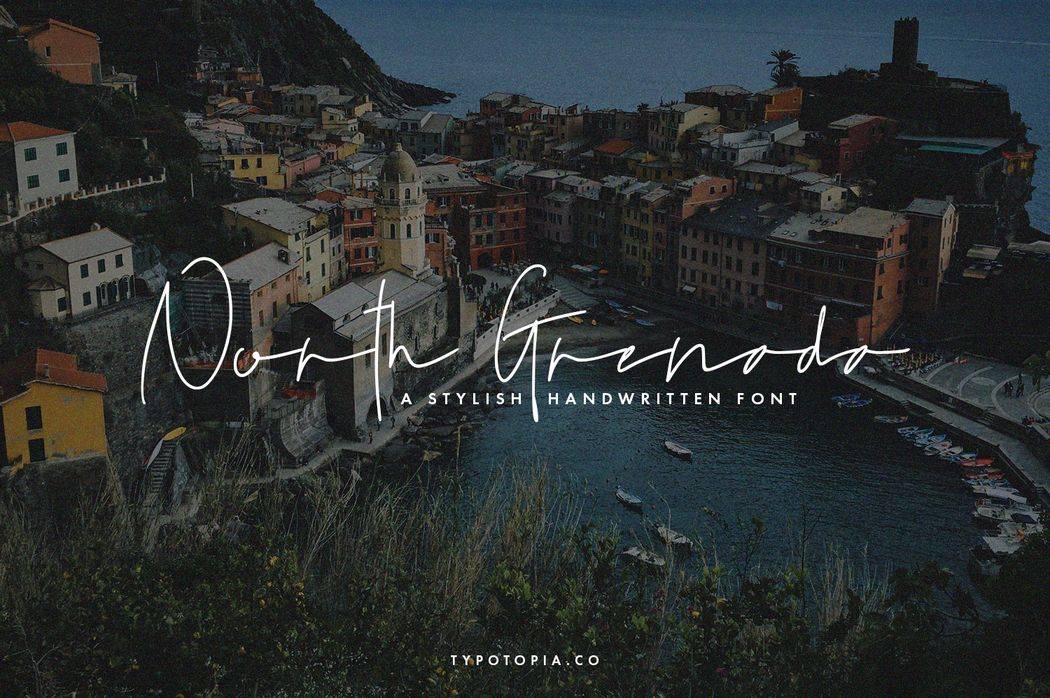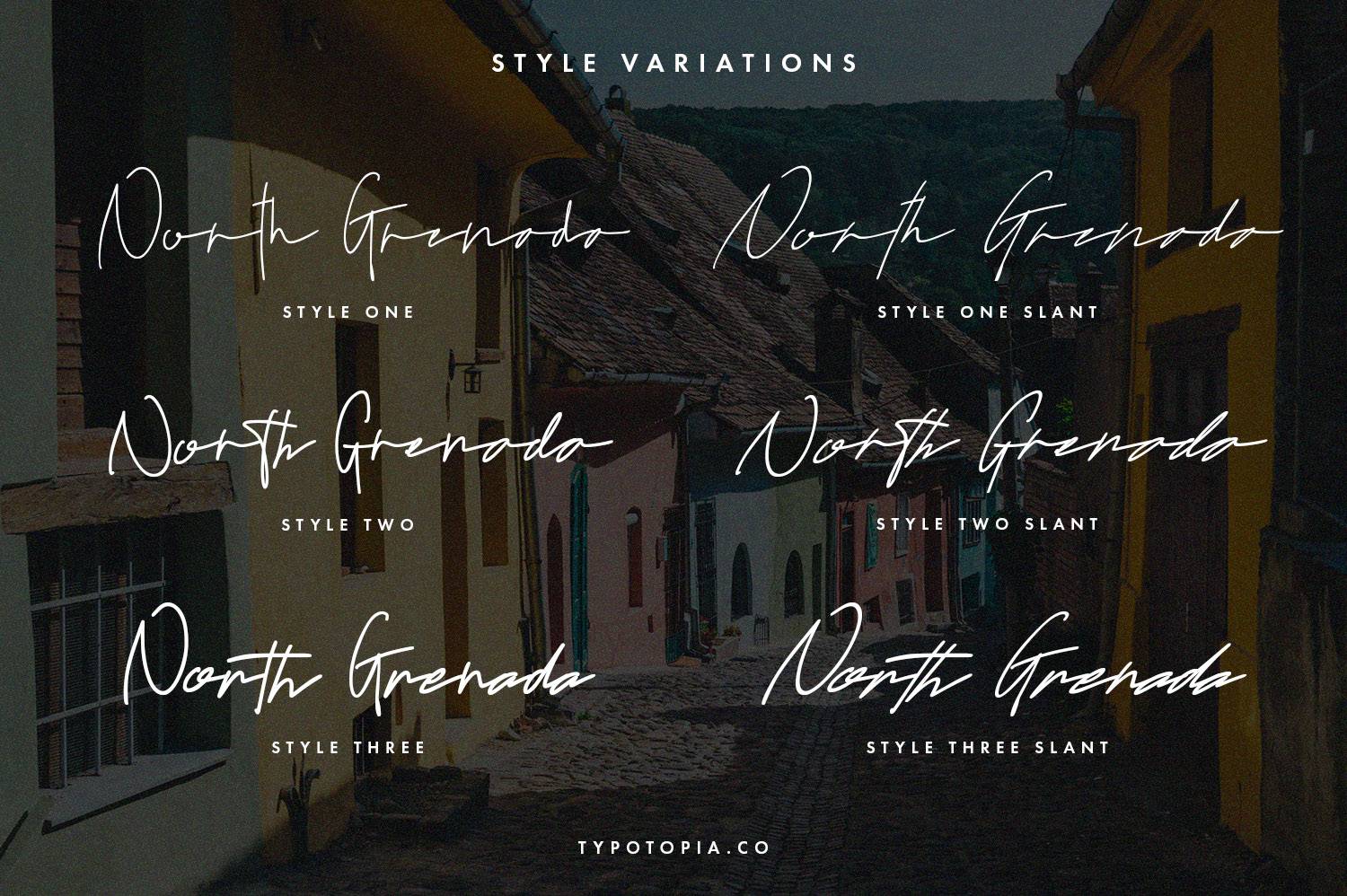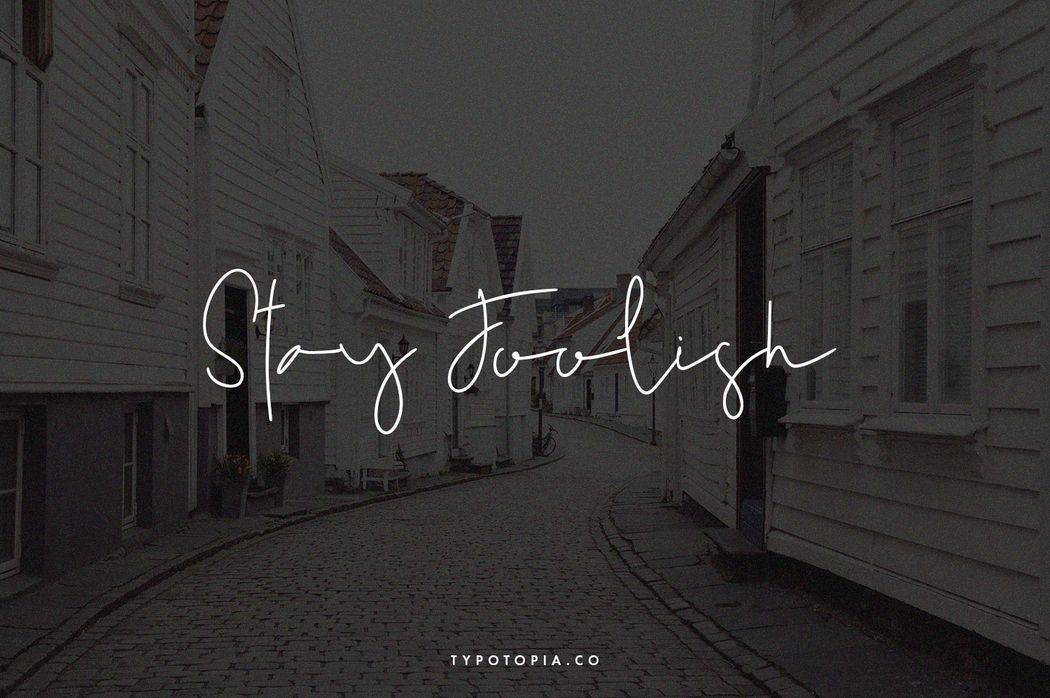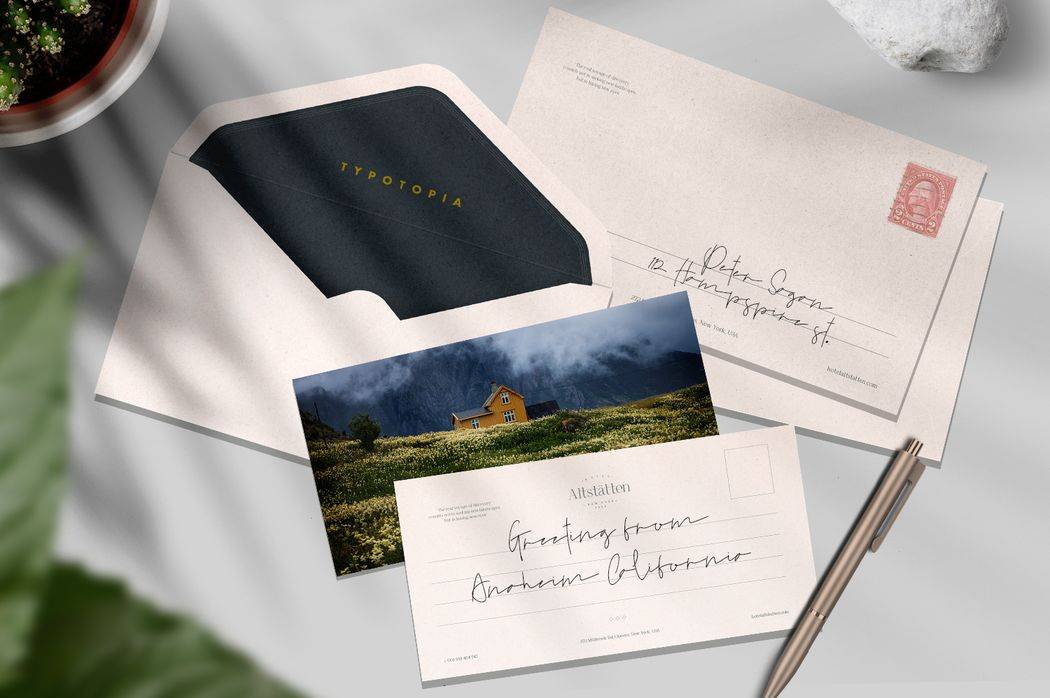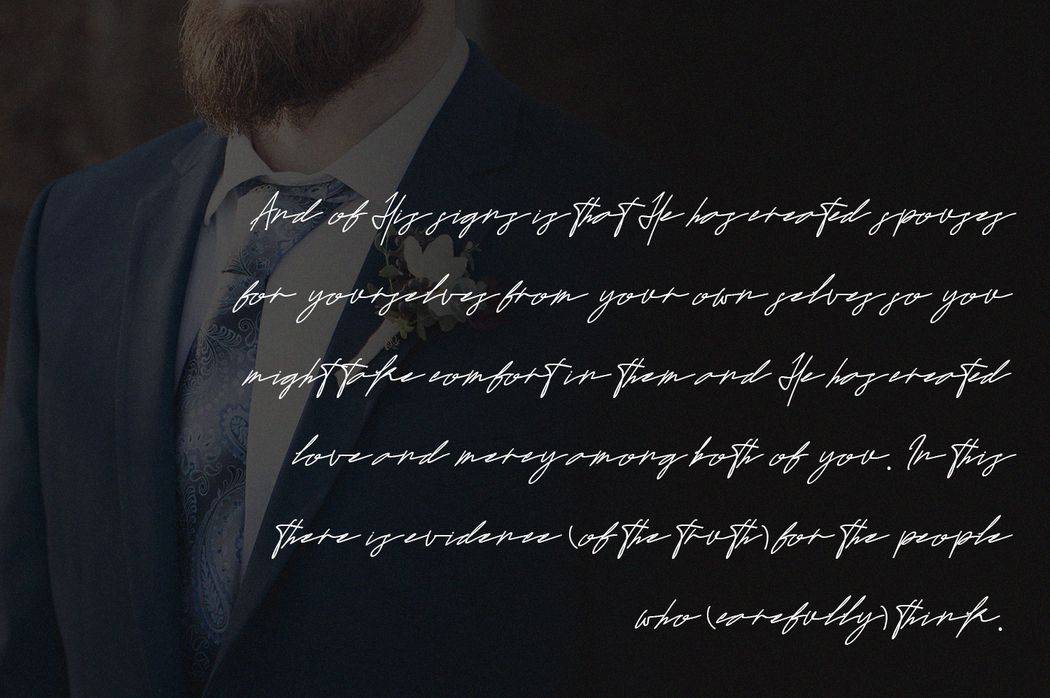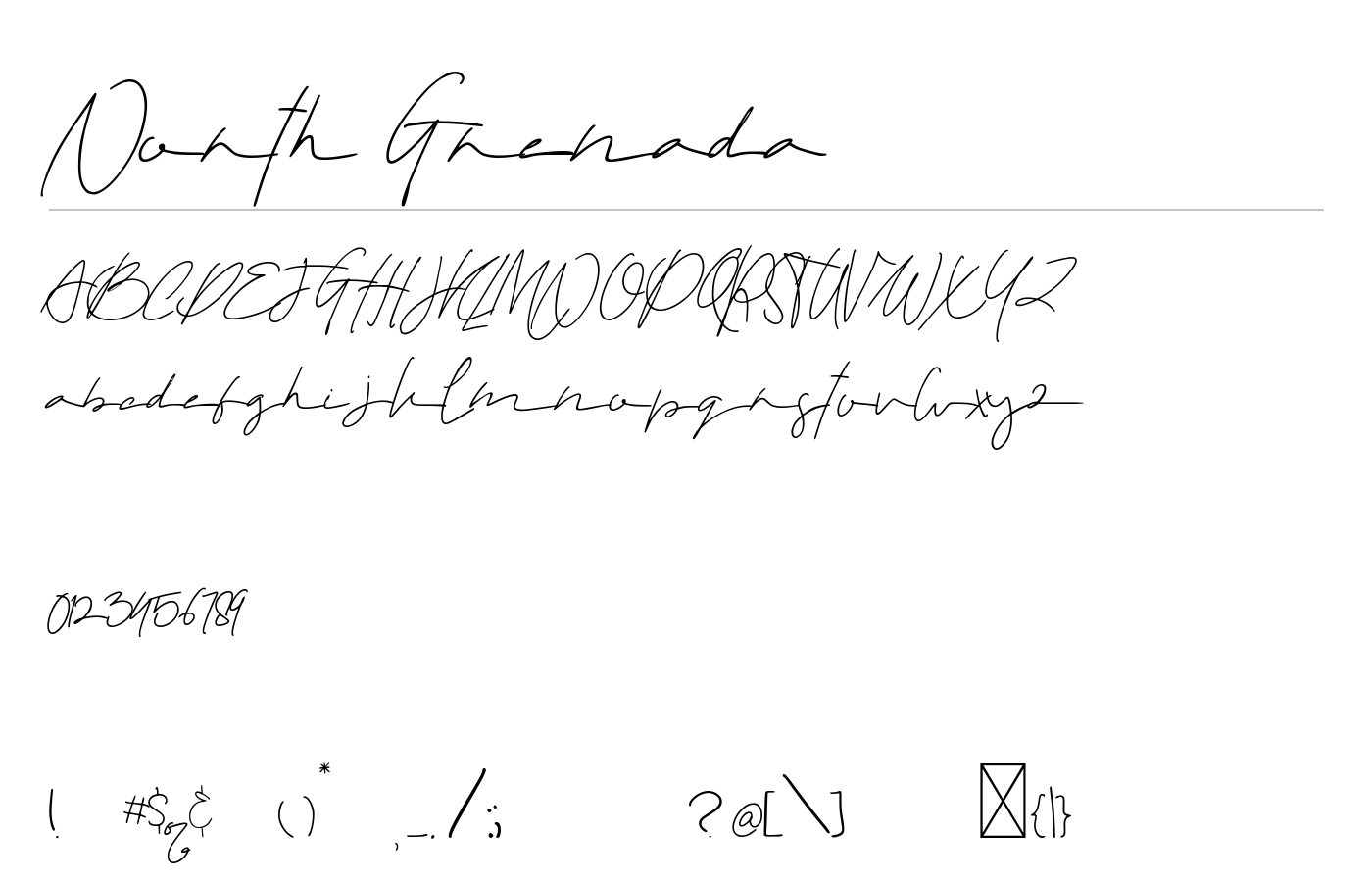
North Grenada is a delicate, handwritten script font characterized by its thin, flowing lines and elegant, slightly irregular letterforms. It conveys a personal, artistic feel that is perfect for adding a touch of sophistication and creativity to branding, invitations, and lifestyle blogs, where a natural and intimate style is desired. Its light weight and airy appearance work best in decorative or headline use rather than long bodies of text.
North Grenada Font
About North Grenada Font
| Font family | North Grenada Font |
| Designer | Khusnun Irawan |